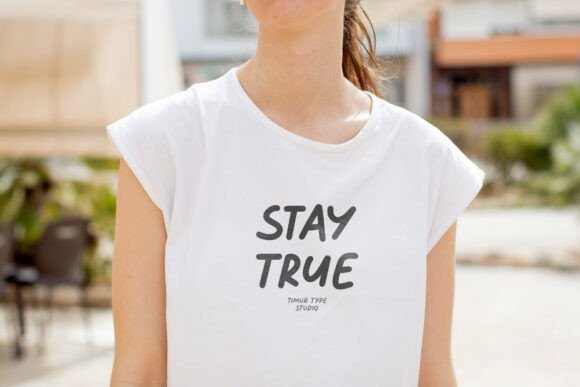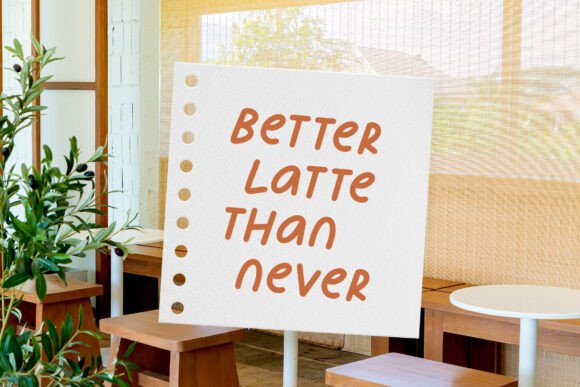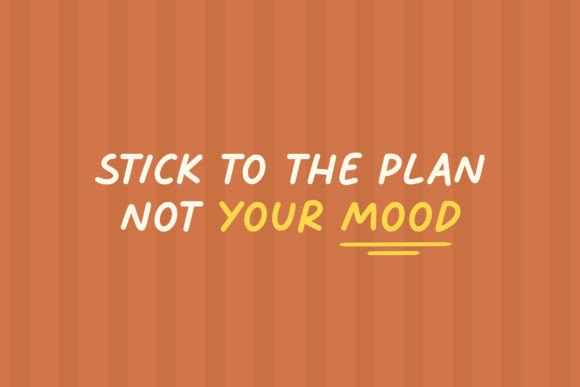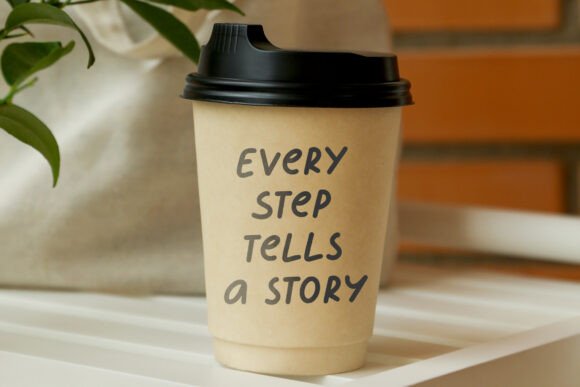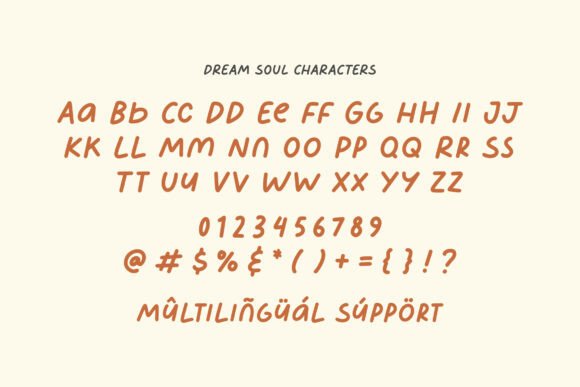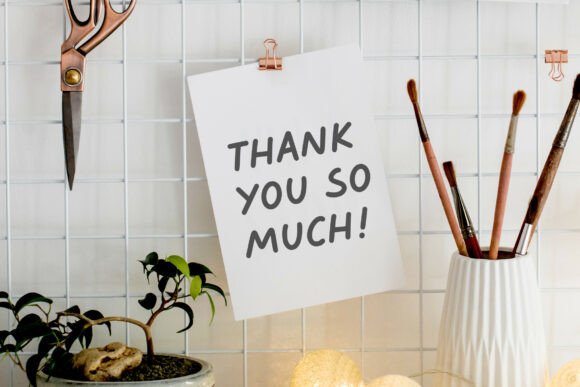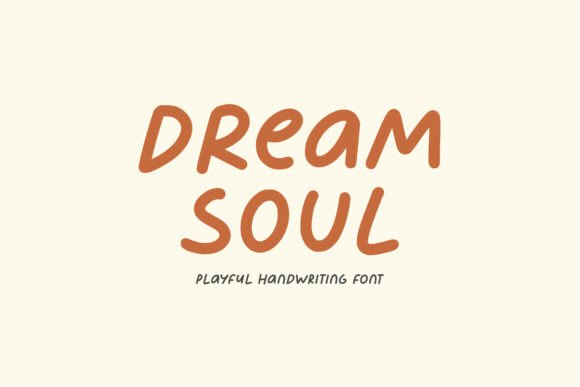
Introducing Dream Soul Font: A Playful Handwriting Font by Timurtype Studio
Are you tired of using the same old fonts in your designs? Look no further! Timurtype Studio is excited to introduce Dream Soul, a playful handwriting font that adds a charming and free-spirited touch to any project. With its smooth curves and casual strokes, Dream Soul is perfect for creating warm and friendly designs that capture the essence of your brand or message.
What Makes Dream Soul Font Special?
Dream Soul is more than just a font – it’s an experience. Its playful and whimsical feel makes it ideal for a wide range of design projects, from invitations and social media graphics to branding, quotes, and creative projects. The font’s smooth curves and casual strokes create a sense of warmth and friendliness, making it perfect for designs that need a personal touch.
Key Features of Dream Soul Font
- Playful Handwriting Style: Dream Soul has a charming, free-spirited feel that’s perfect for designs that need a personal touch.
- Smooth Curves and Casual Strokes: The font’s smooth curves and casual strokes create a warm and friendly feel that’s easy to read.
- Multilingual Support: Dream Soul supports multilingualism, making it perfect for designs that need to reach a global audience.
Why Choose Dream Soul Font?
There are many fonts available, but Dream Soul stands out from the crowd. Here are just a few reasons why:
- Unique and Eye-Catching: Dream Soul is a one-of-a-kind font that’s sure to grab attention.
- Easy to Read: Despite its playful feel, Dream Soul is easy to read, making it perfect for designs that need to communicate a message.
- Versatile: Dream Soul can be used in a wide range of design projects, from invitations and social media graphics to branding and creative projects.
Here are a few tips for getting the most out of Dream Soul:
- Experiment with Different Sizes and Colors: Dream Soul looks great in a variety of sizes and colors, so don’t be afraid to experiment.
- Pair with Other Fonts: Dream Soul pairs well with other fonts, so try combining it with a bold font for headings and a clean font for body text.
- Use in Combination with Images: Dream Soul looks great when used in combination with images, so try using it to add text to your photos or illustrations.
In conclusion, Dream Soul font is a playful handwriting font that’s perfect for designers and crafters who want to add a personal touch to their designs. With its smooth curves and casual strokes, Dream Soul creates a warm and friendly feel that’s easy to read. Its multilingual support and multiple file formats make it a versatile font that can be used in a wide range of design projects. So why wait? Download Dream Soul font today and start creating!